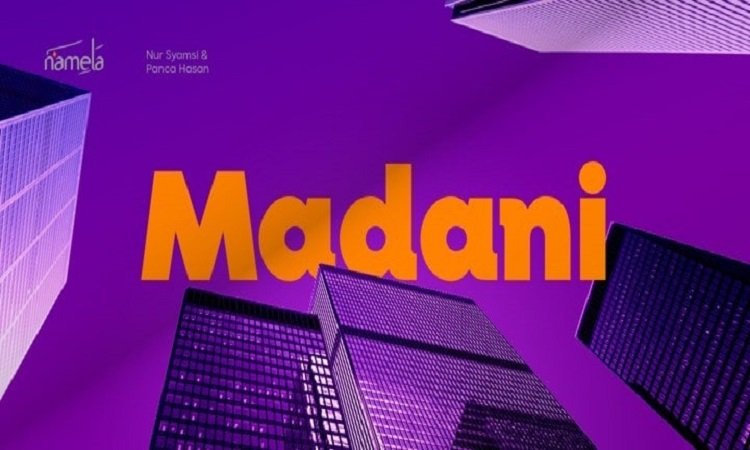
Madani Sans Serif Font
Madani Font is an condensed sans serif typeface with solid font files. it is based on the compact solid font, by combining a variety of styles. Suitable for Logo, greeting cards, quotes, posters, branding, name card, stationary, design title, blog header, art quote, typography.